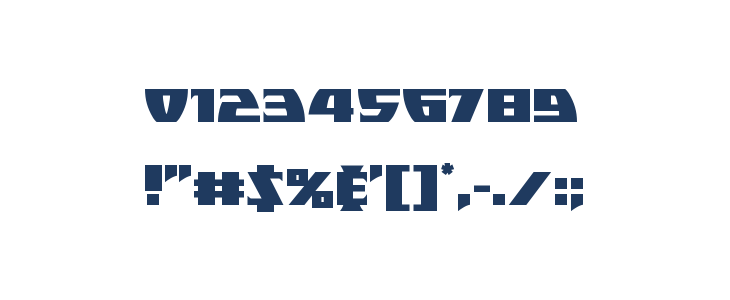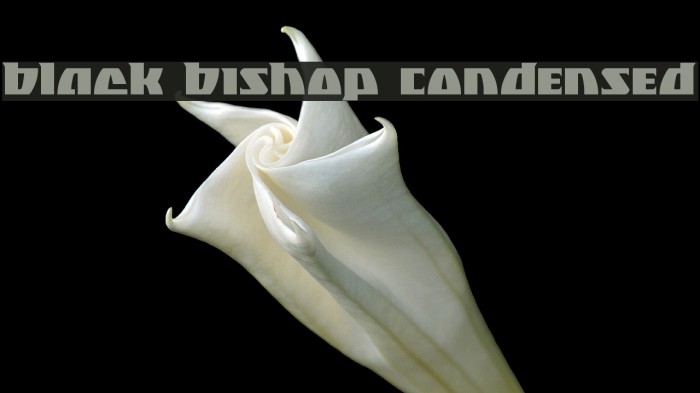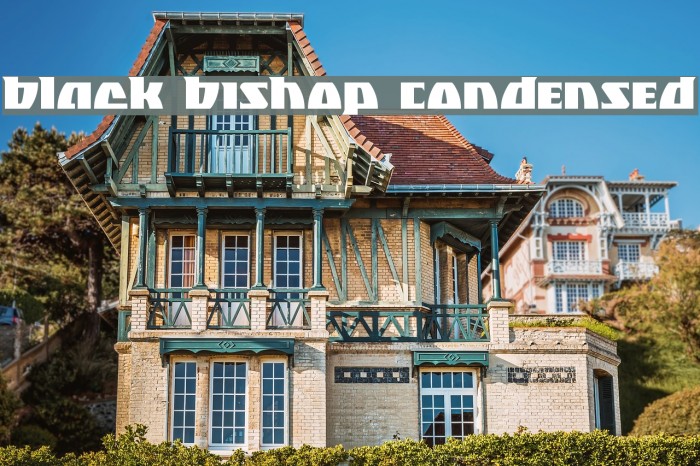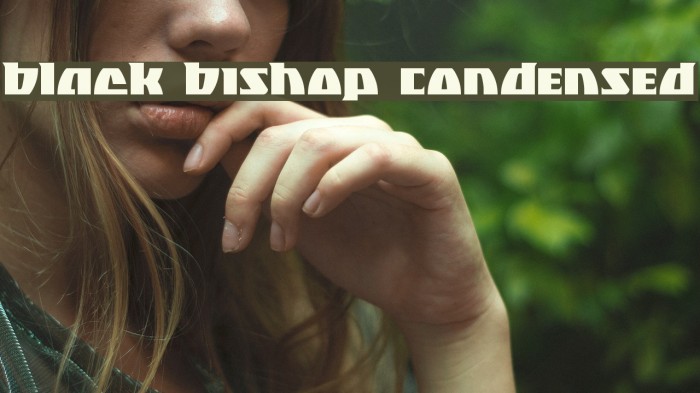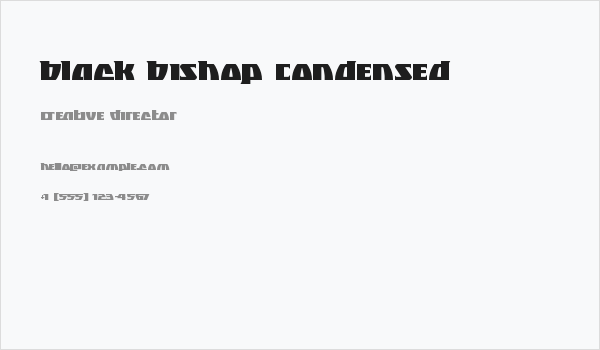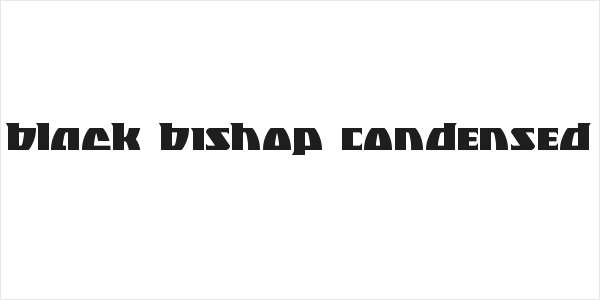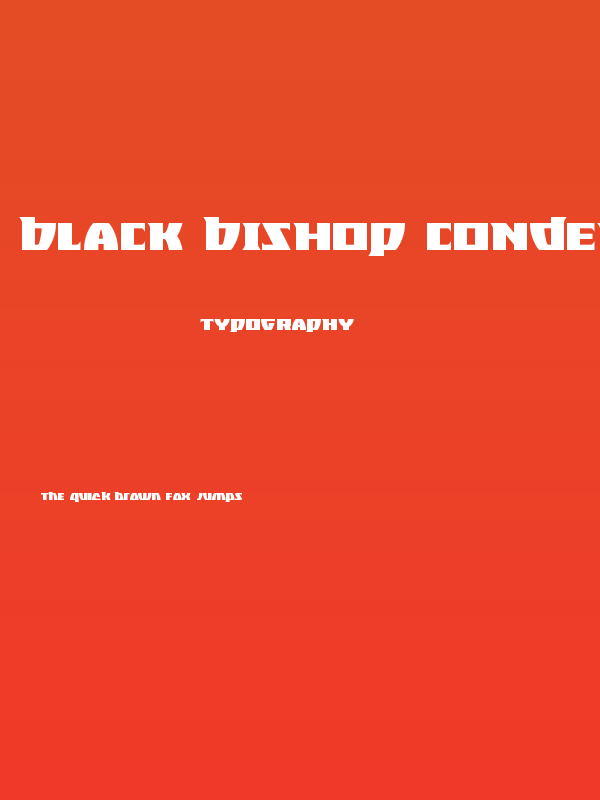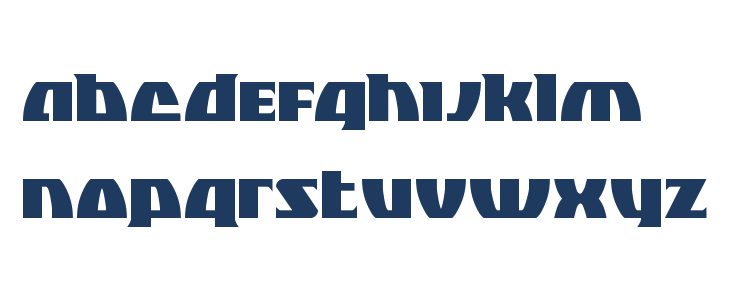
Black Bishop Condensed Font
Black Bishop Condensed Description
This font features a bold and striking design with a condensed width, giving it a powerful presence. The characters are crafted with sharp, angular edges and a geometric style, making it highly suitable for attention-grabbing headlines and impactful designs. The uppercase and lowercase letters maintain a consistent style, while the numerals and special characters complement the overall aesthetic. Its unique structure and bold weight make it ideal for projects that require a strong visual impact.